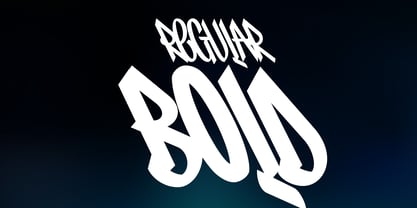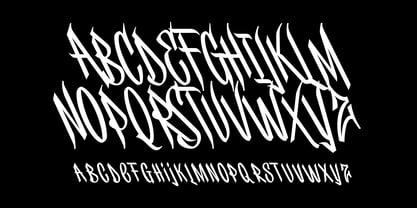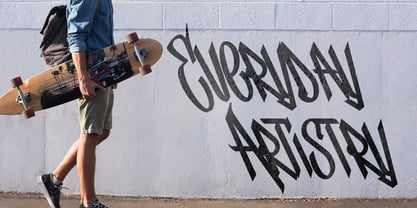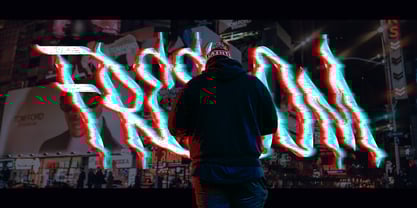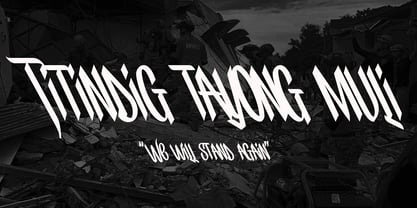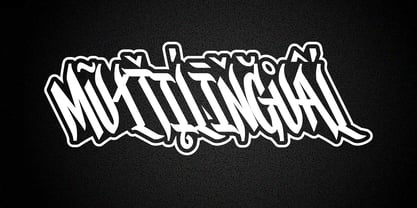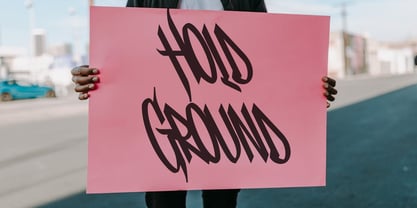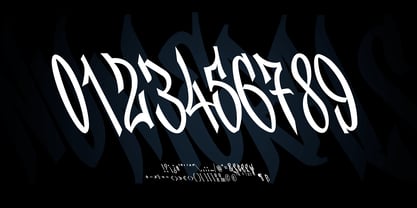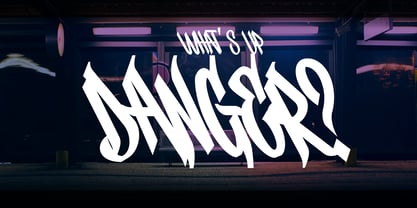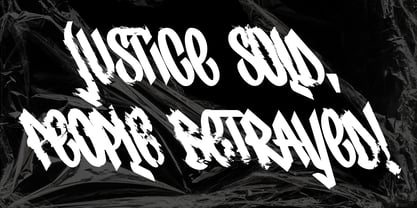
Panindig
by Lurinzu Studios
The Panindig Font Family was designed by Lorenzo Gabriel Martinez and published by Lurinzu Studios. Panindig contains 2 styles and family package options. More about this family
Panindig (pronounced pa-nin-dig) is an urban graffiti display font inspired by protest signs, street expression, and Filipino resilience. Each letter stands tall and firm; a visual statement of courage, rebellion, and voice. Its bold angular strokes and raw paint textures echo the spirit of standing your ground or “Panindigan mo". (tagalog translation) Perfect for posters, album covers, apparel, streetwear branding, political art, editorial headlines, and digital campaigns, Panindig captures the raw emotion of the streets while maintaining readability and structure. This font aims to combine local voice with modern street aesthetics.
Designers: Lorenzo Gabriel Martinez
Foundry: Lurinzu Studios